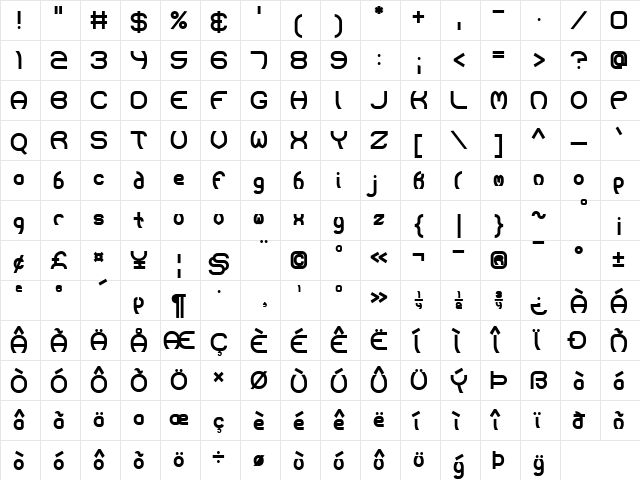
Majistir Bold
Design Context for Majistir Typeface
Majistir offers clean, dependable letterforms without strong stylistic allegiance, making it a practical choice for designers who need flexibility. Its bold stroke weight gives it real presence on the page.